Creepy Font Styles
Creepy fonts occupy the darker corner of decorative text styles — eerie, Gothic-adjacent, and unsettling enough to set a mood before anyone reads your words. Our creepy text generator creates horror-themed Unicode text styles perfect for Halloween usernames, ghost story captions, scary Discord server names, horror content creator bios, and any digital presence that leans into the macabre.
Each creepy font style uses Unicode characters from Gothic, phonetic, and mathematical alphabets that naturally lend themselves to dark aesthetics — making them real text that copies and pastes into any Unicode-supporting platform. Paste creepy text into Instagram, TikTok, Discord, Twitter, Reddit, or YouTube channel descriptions — it displays the same eerie way on every device and browser.
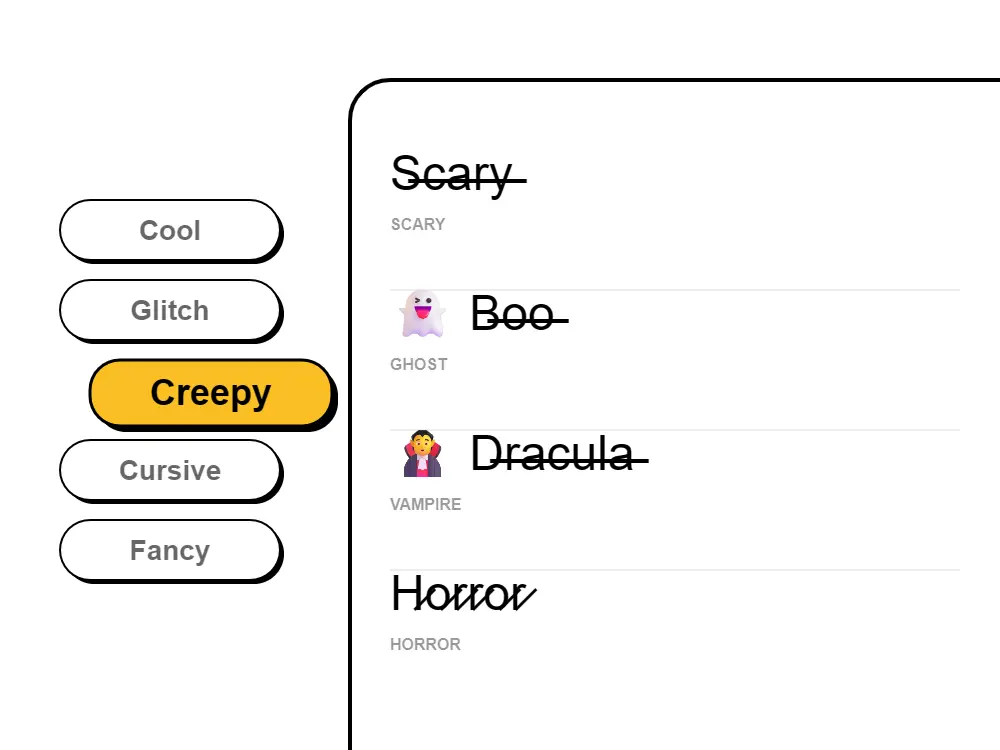
Creepy Font Style Illustration
Creepy Font Styles for
Every Platform.
Create creepy fonts for horror stories and Halloween. Our creepy text generator makes eerie fonts, unsettling letters, and spine-chilling text. Copy paste creepy fonts for scary content. Get horror fonts, spooky text, and gothic letters. The best free creepy font generator with macabre styles and frightening effects.
How is creepy text different from regular fonts?
Creepy text uses Unicode characters and combining marks to create an unsettling, horror-themed appearance. Unlike regular fonts, creepy fonts are designed to evoke feelings of unease, mystery, and spookiness perfect for horror content.
What occasions are best for creepy text?
Creepy text is perfect for Halloween posts, horror stories, scary movie promotions, creepypasta, haunted house content, thriller book marketing, and any content with supernatural or frightening themes. It instantly sets a spooky mood.
Can creepy fonts be used for gaming content?
Absolutely! Creepy fonts are extremely popular for horror games, survival games, mystery games, and atmospheric gaming content. They help create immersive horror experiences and make gaming profiles more thematic and memorable.
Do creepy fonts work year-round or just Halloween?
While creepy fonts peak during Halloween, they're used year-round for horror movies, thriller content, Gothic aesthetics, dark fantasy, and alternative culture. The horror genre has devoted fans who appreciate creepy aesthetics any time.
Are there different levels of creepy text?
Yes! We offer various creepy intensities from subtly unsettling to extremely disturbing. Choose lighter effects for mysterious vibes and heavier effects for maximum horror impact, depending on your content needs.